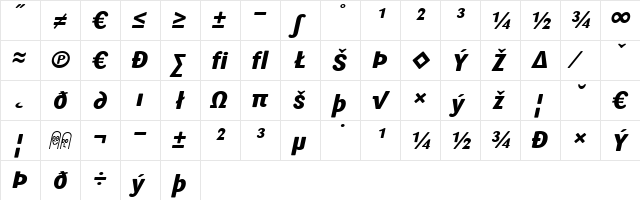
Sari ExtraBold Italic Font Preview
| Foundry | Hans Reichel, . Published by FontShop International. FontFont Release |
Design Context for Sari Typeface
Sari takes a measured approach to typography — its balanced proportions and neutral character make it a reliable workhorse for both digital and print work. The dynamic lean of this cut emphasises speed and emphasis in any layout. The heavy weight commands attention and anchors typographic hierarchies.
Pro Tip: Try Sari for annotation and caption copy alongside an upright companion — the contrast in angle creates a dynamic but ordered typographic system.